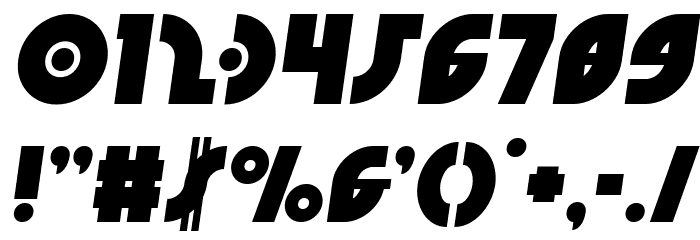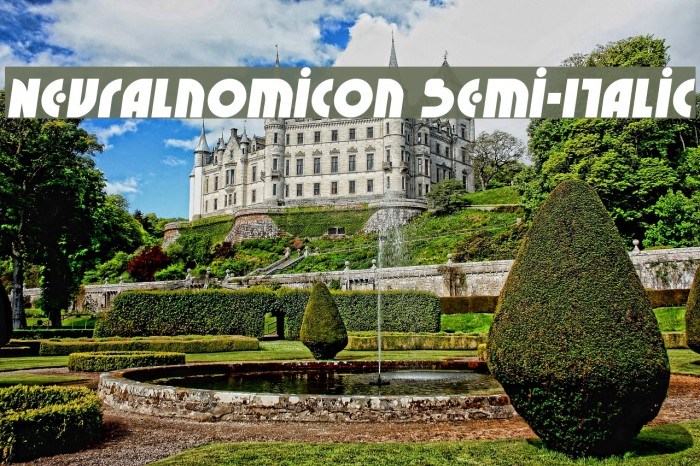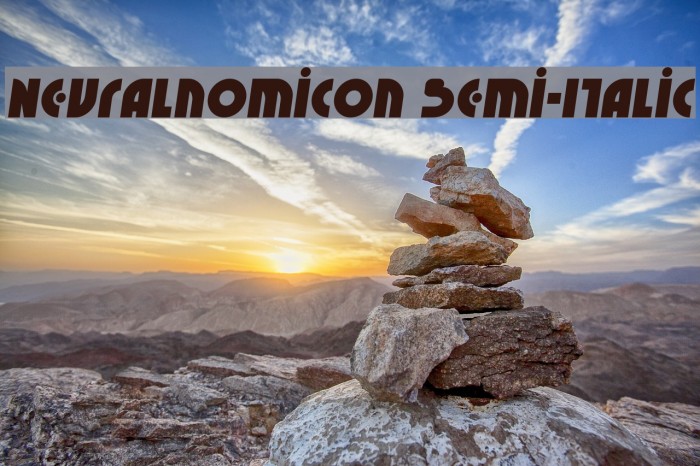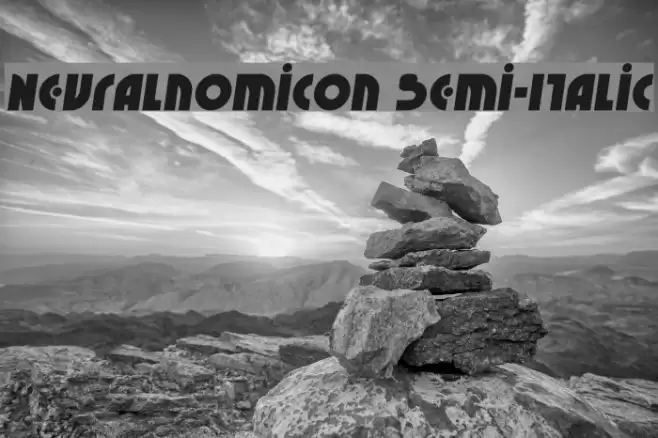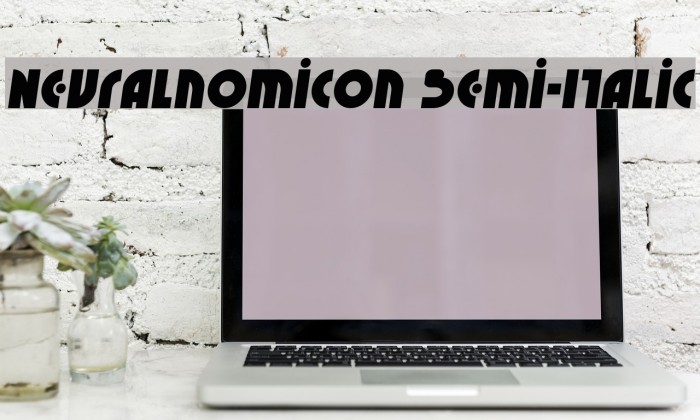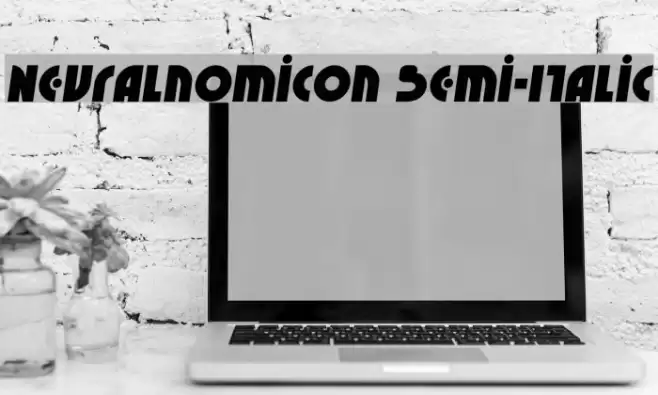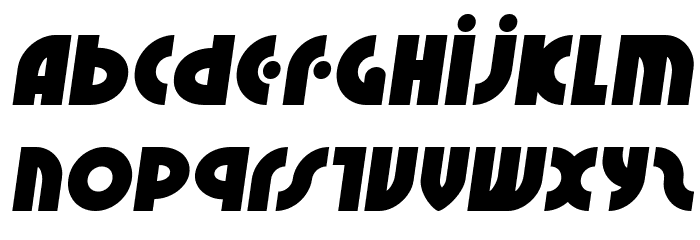
Neuralnomicon Semi-Italic Font
Neuralnomicon Semi-Italic Description
This font features bold, geometric shapes with a futuristic and avant-garde style. The characters are constructed with thick strokes and unique cut-out elements, creating a sense of movement and dynamism. The uppercase and lowercase letters maintain a consistent style, with rounded edges and sharp angles that give it a modern and edgy appearance. The numerals and special characters follow the same design principles, ensuring a cohesive look across all glyphs. This font's distinctive style makes it stand out, making it ideal for creative and bold design projects.
A bold, geometric font with a futuristic and avant-garde style from Uncategorized fonts.
- Proposed Projects: Ideal for branding, posters, album covers, and any project that requires a modern and bold aesthetic.